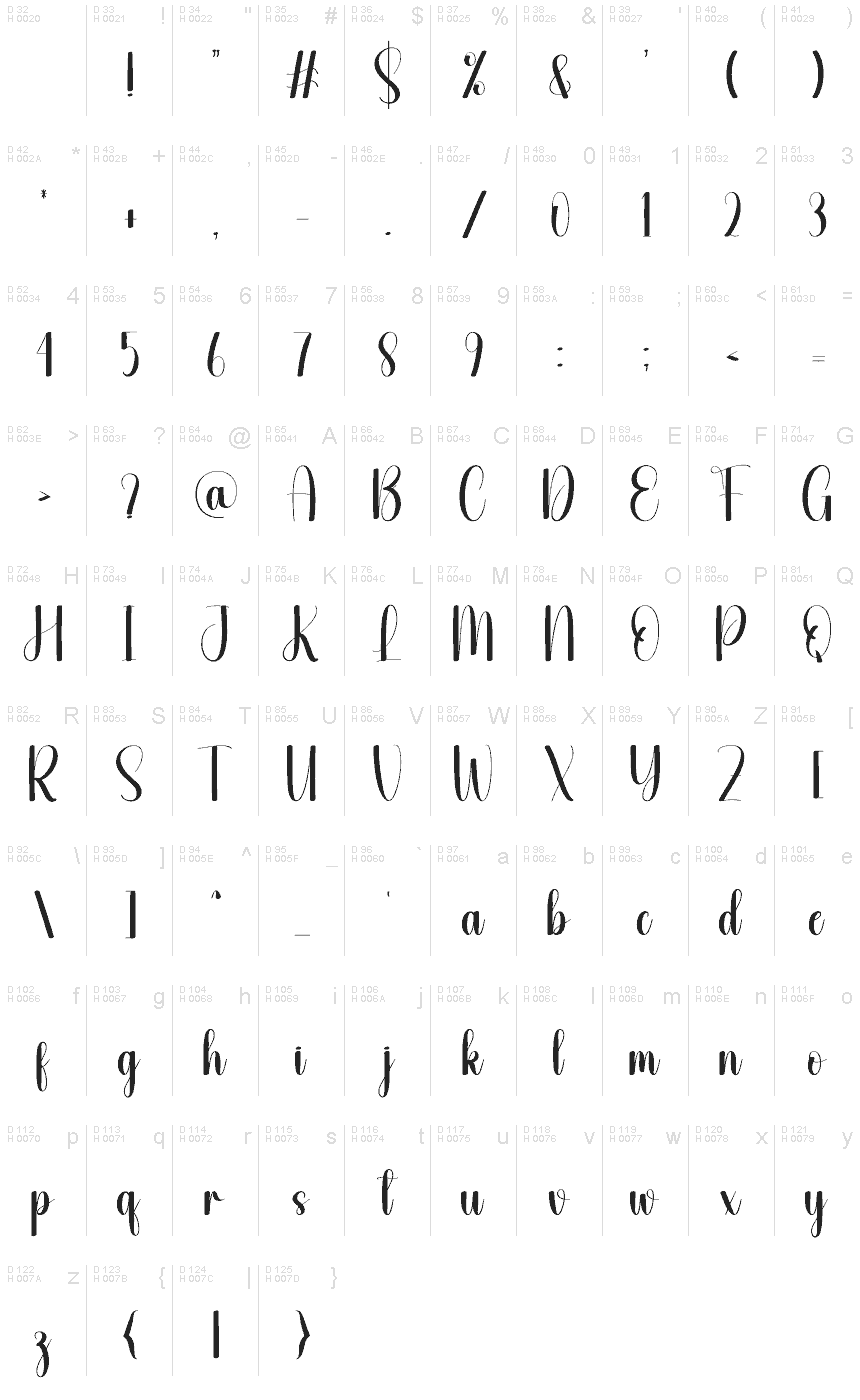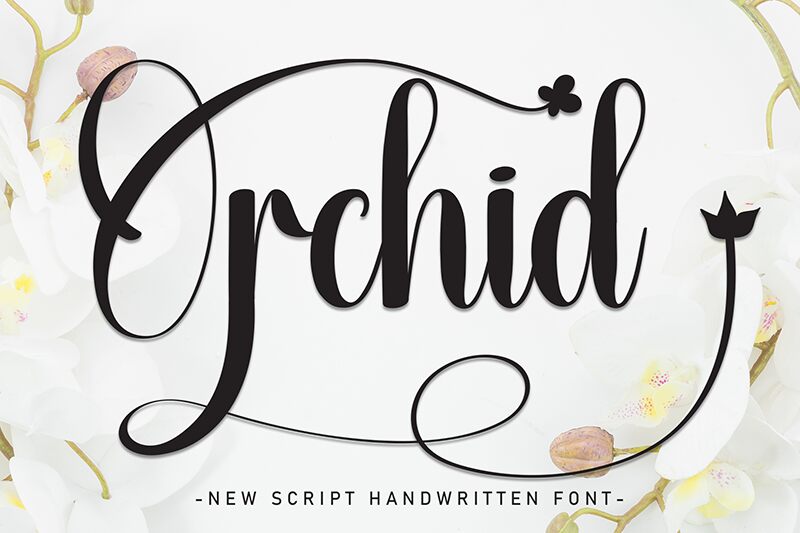
Orchid
Orchid font designed by Andi Moz is an elegant flowing calligraphy font with a modern, refined aesthetic. It expresses expressions through condensed curves created with creative branding or invitations. The multifaceted design provided by this expressive font can make any design stand out.